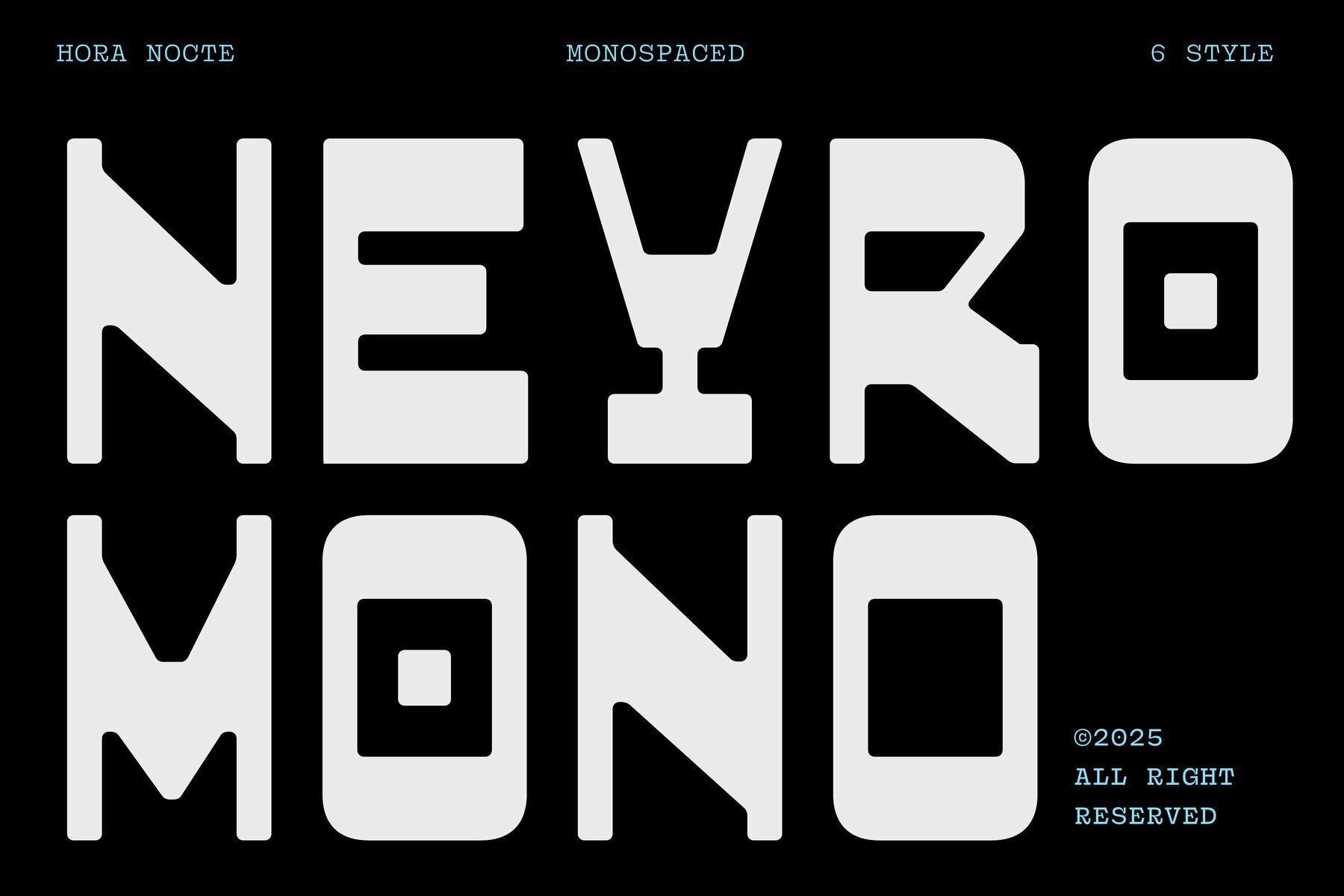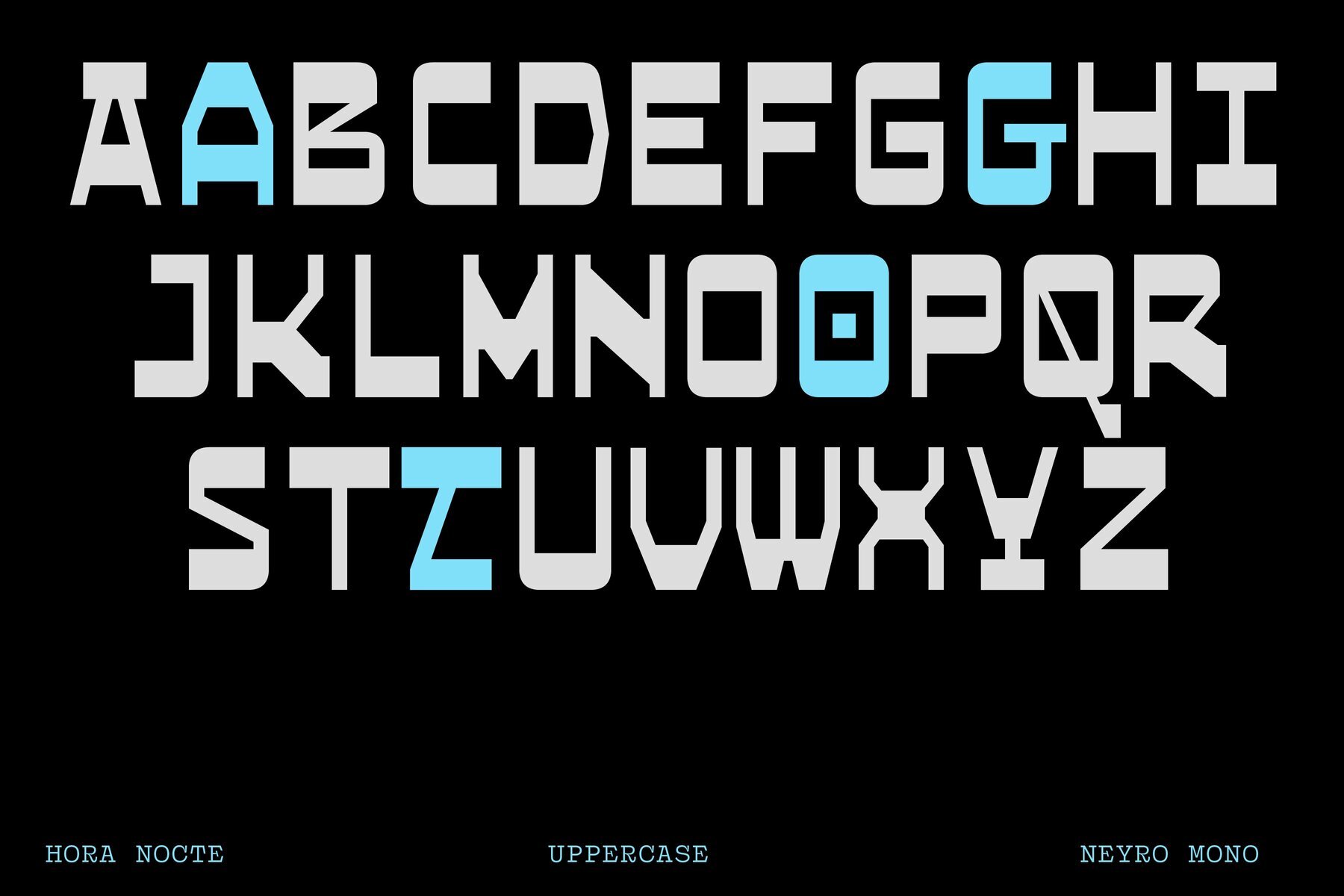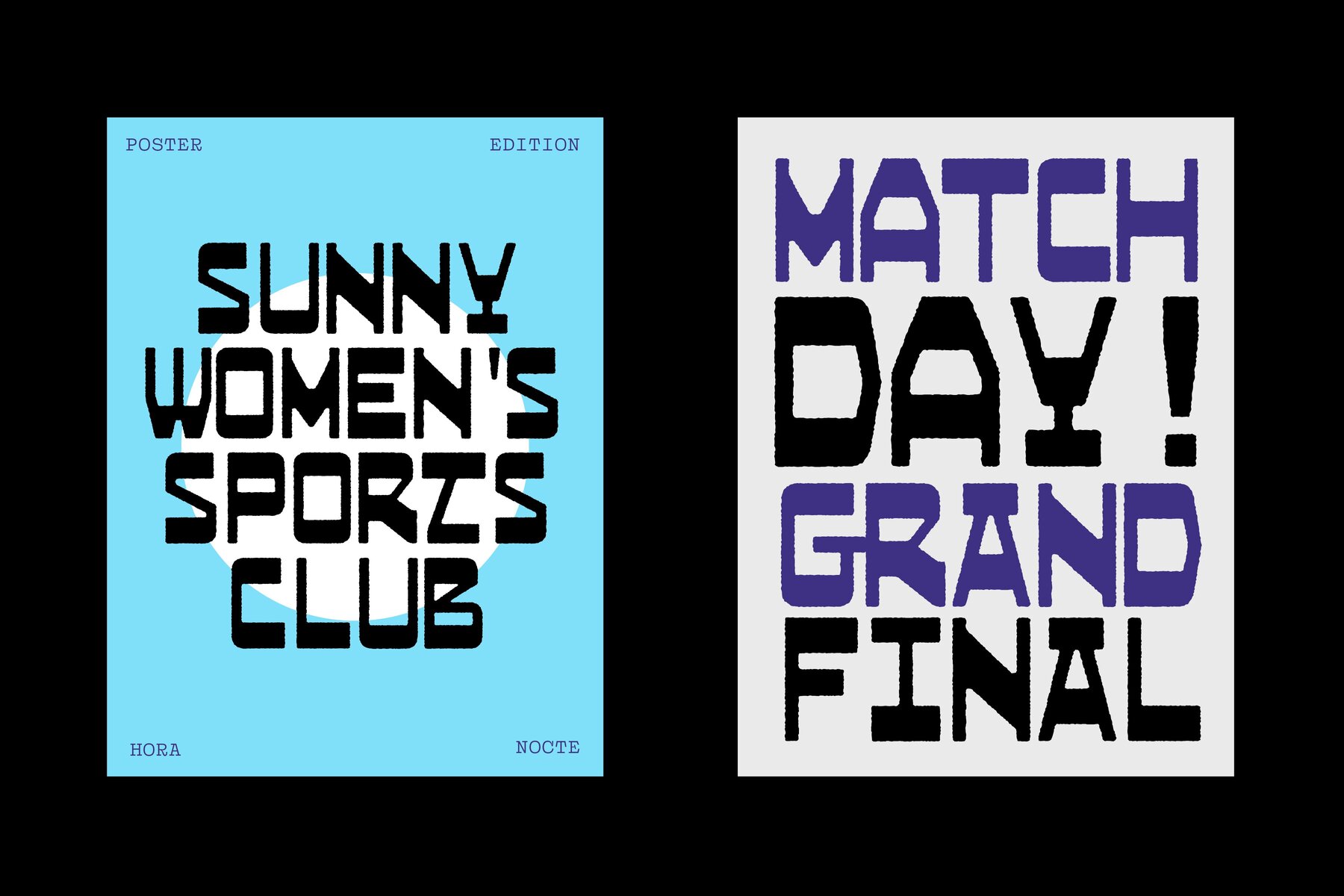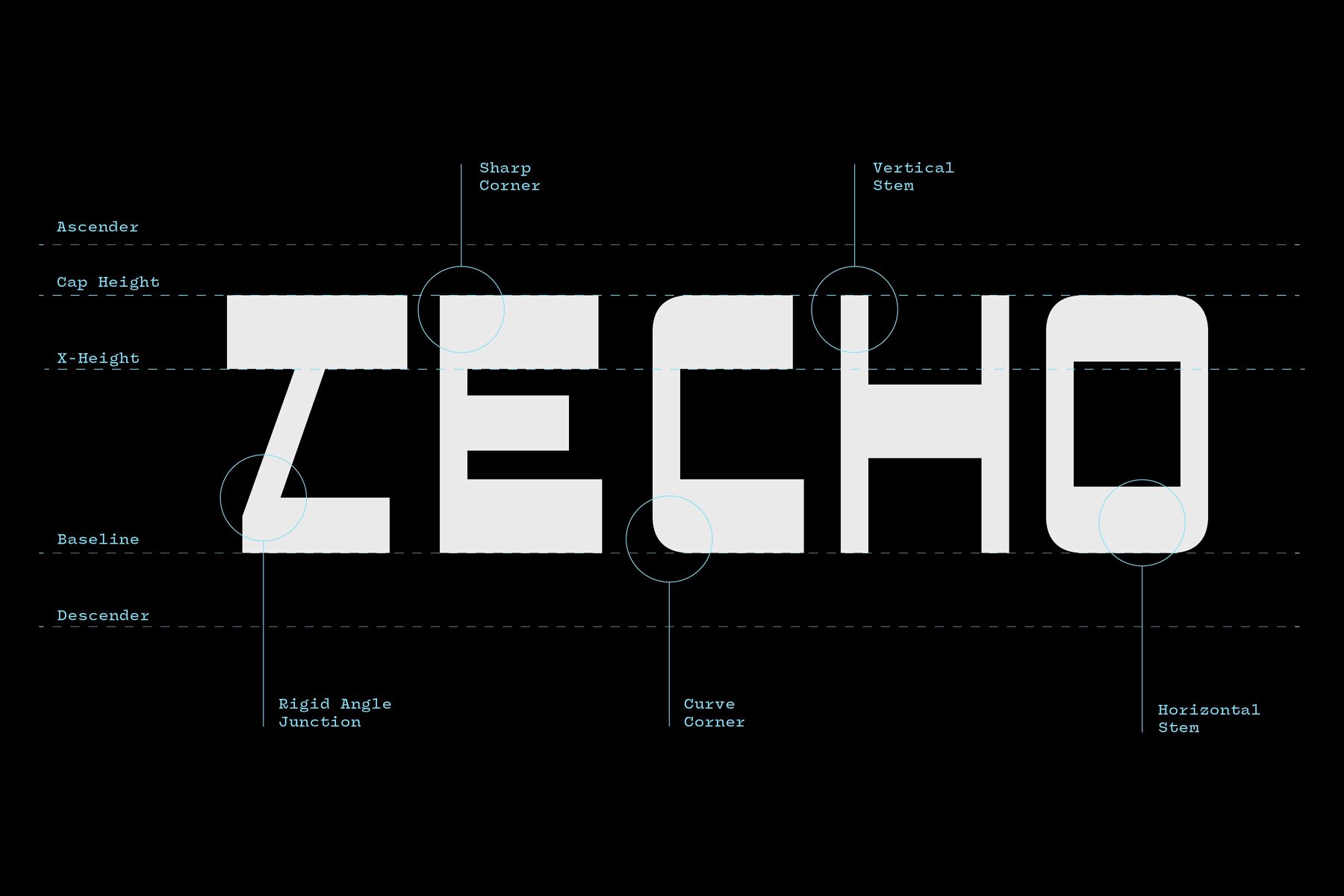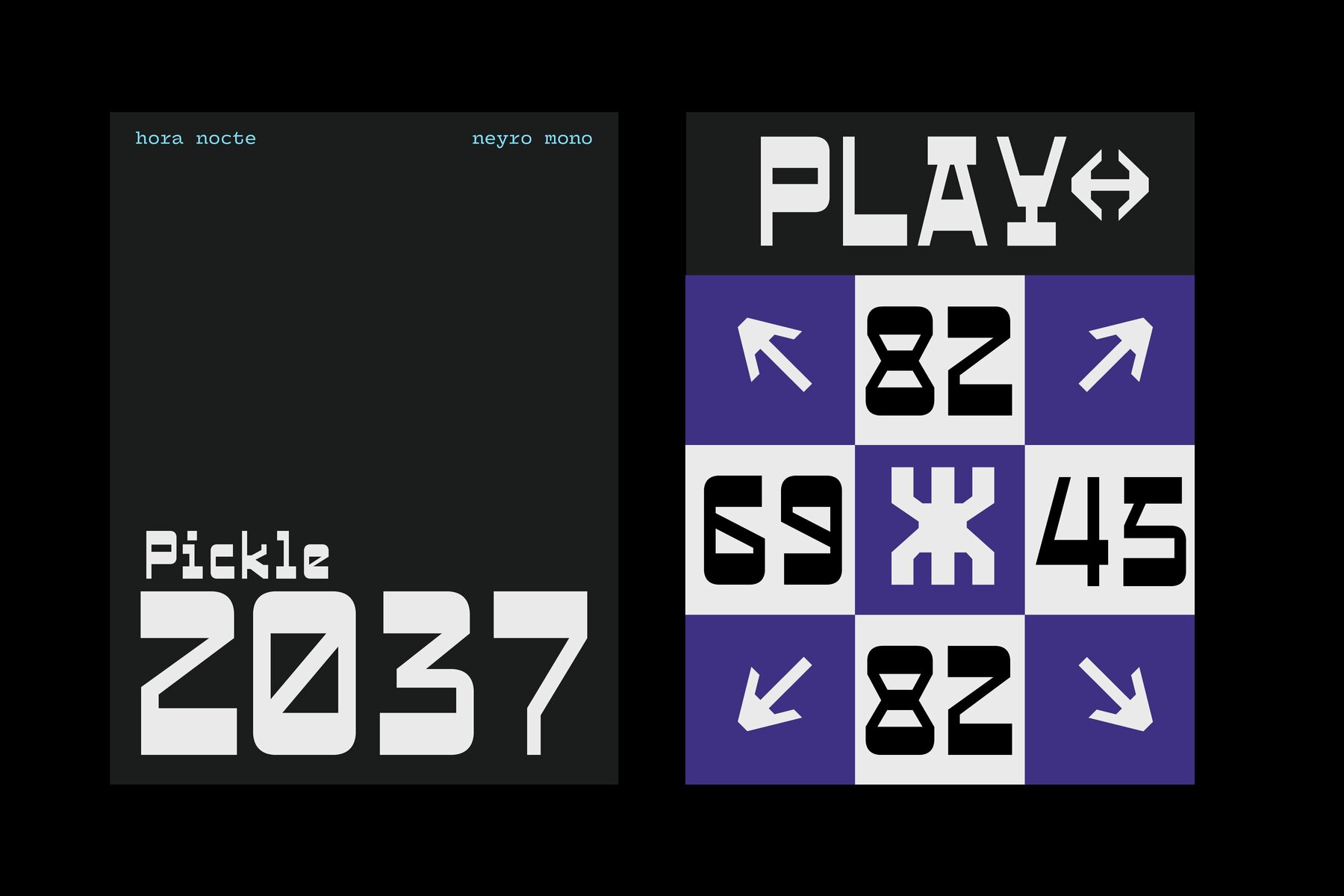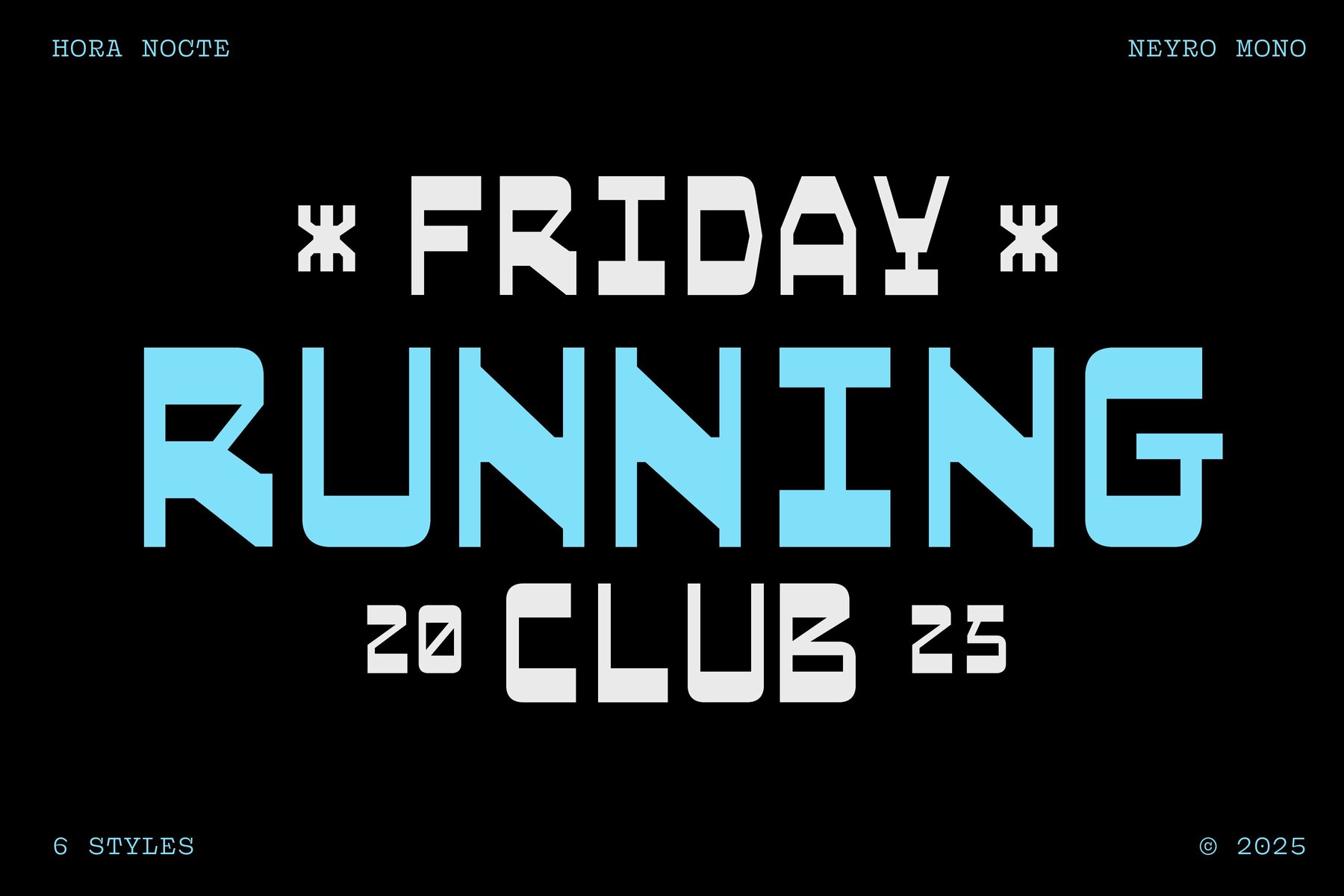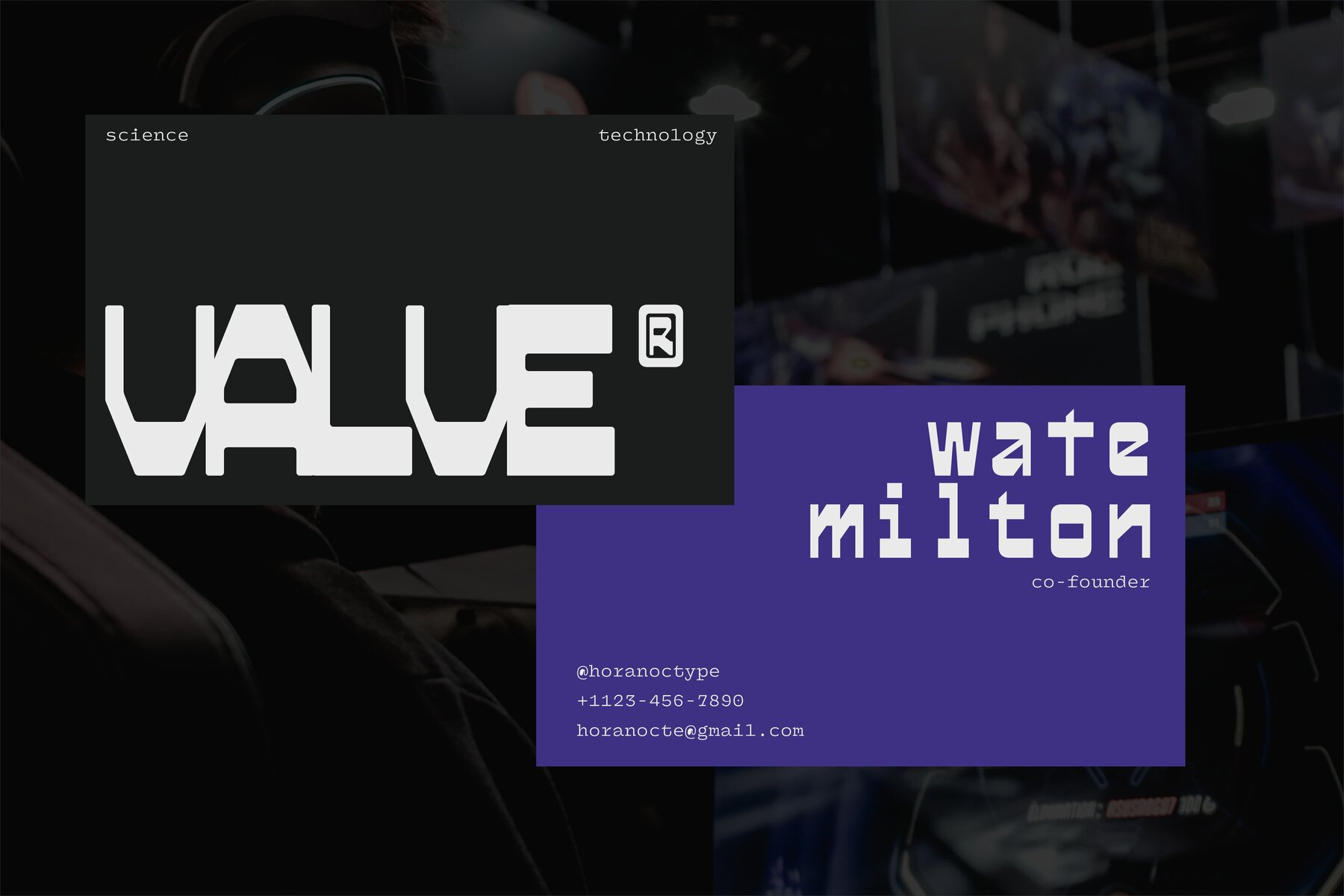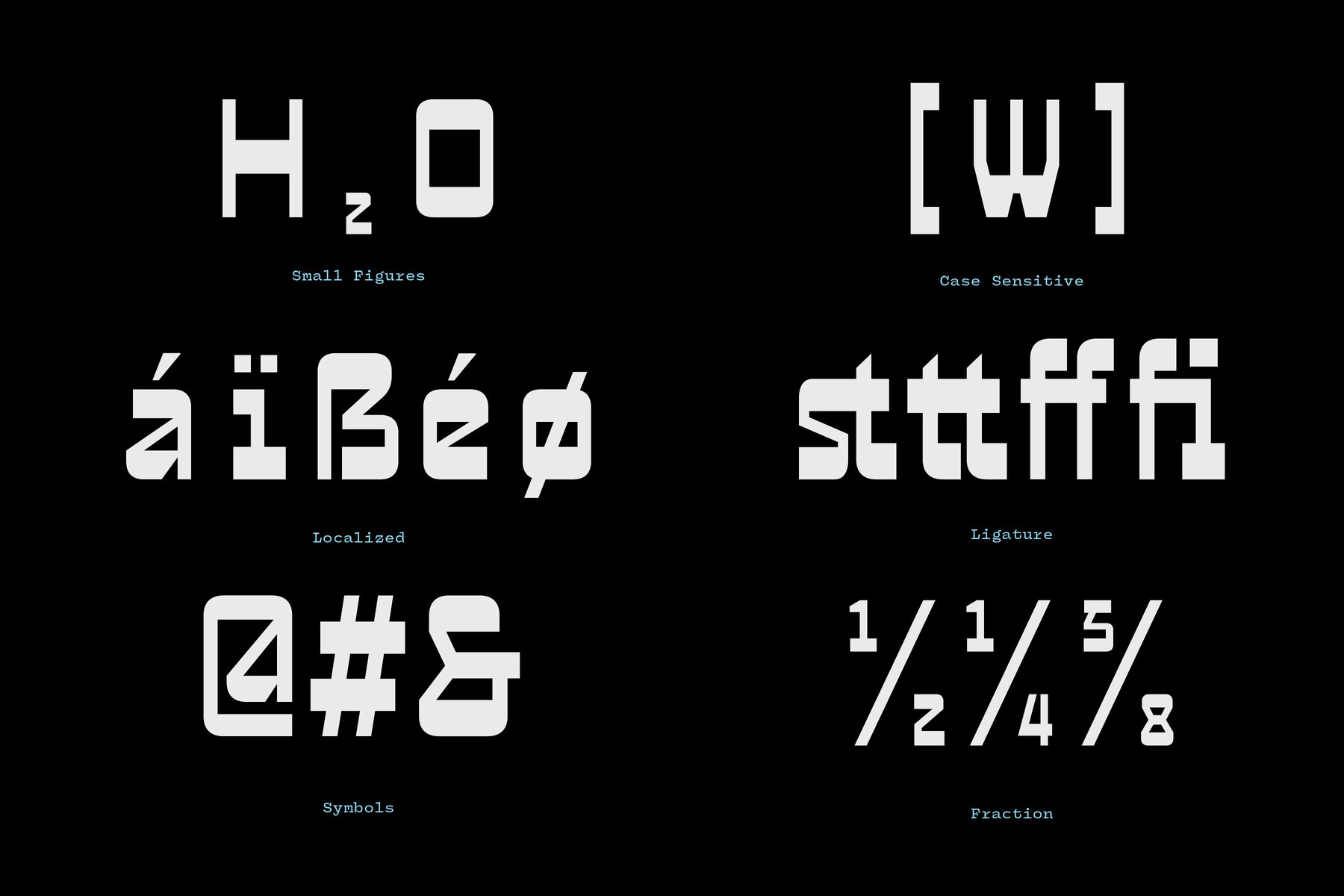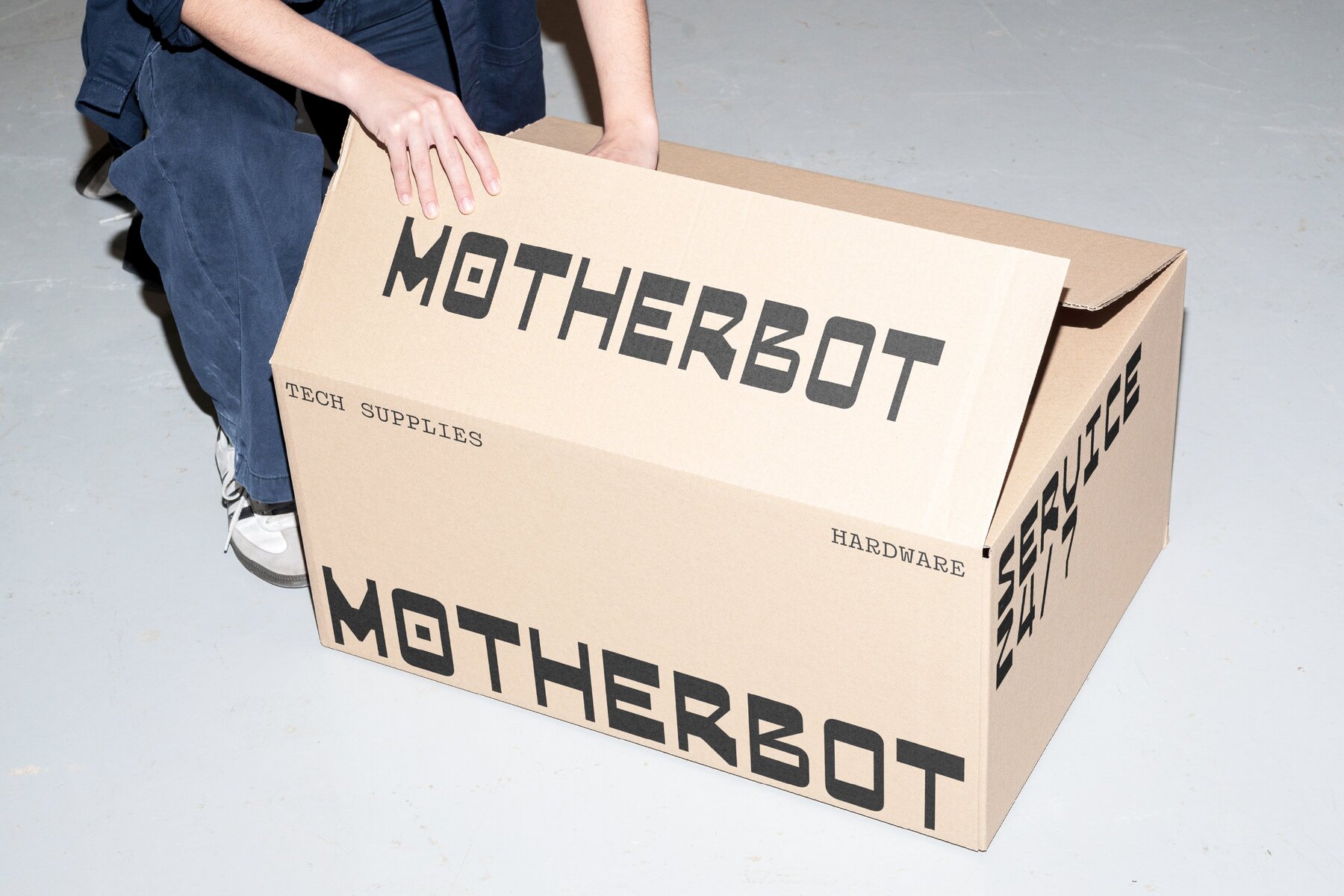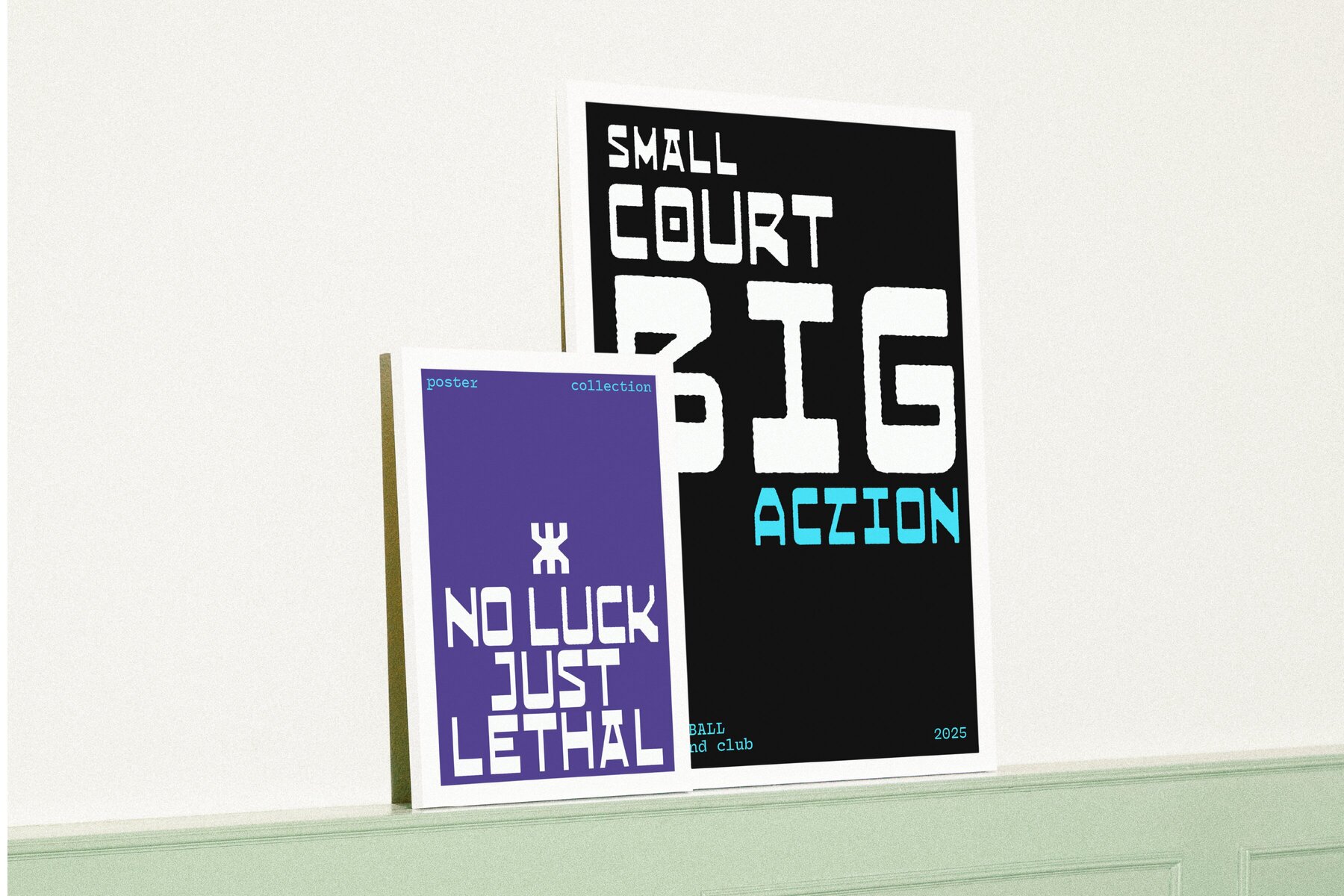
HN Neyro Mono Font
HN Neyro Mono is crafted for those who appreciate the precision and distinctiveness of a display typeface. Its geometric, monospaced design brings a fresh approach to text with its six unique styles, including Regular, Soft, Drawn, and Slanted versions. This diversity in style offers graphic designers the flexibility to utilize it across various creative projects.HN Neyro Mono: Geometric Monospaced Elegance
HN Neyro Mono provides a visually distinctive typographic solution for designers seeking to make a bold statement.